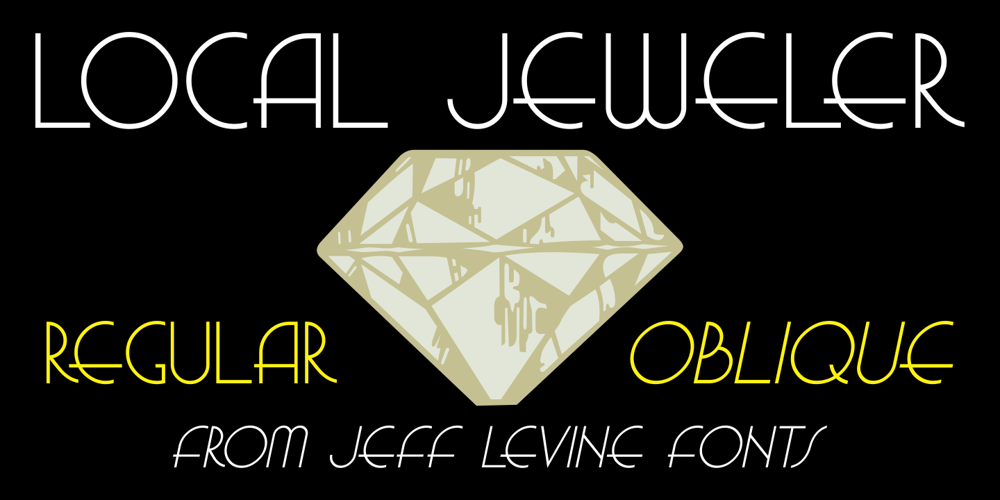
Local Jeweler JNL Font Family was designed by Jeff Levine and published by Jeff Levine. Local Jeweler JNL contains 2 styles and family package options. Local Jeweler JNL was inspired by an online image of a vintage 1940s-era store sign. This type design features a thin Art Deco sans serif in both regular and oblique versions.